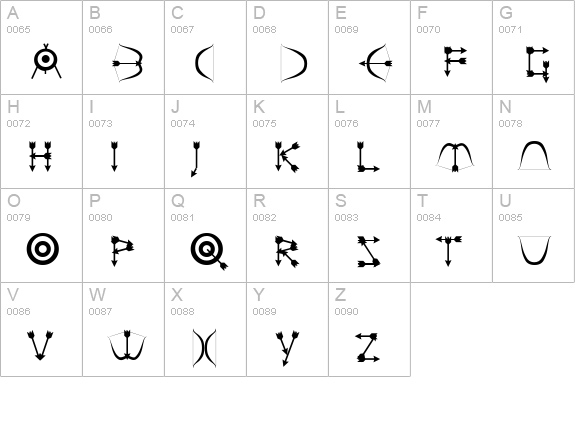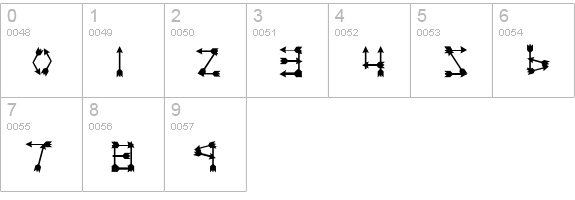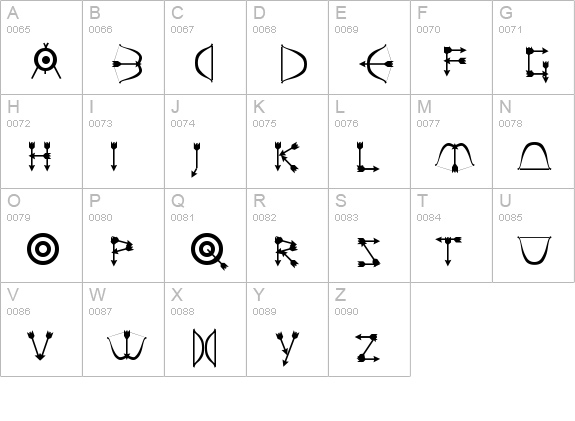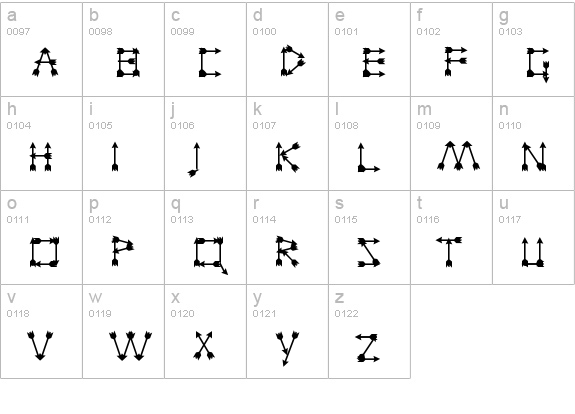
Zarrow Font Details
Zarrow font is a modern and stylish typeface that combines elegance with a touch of playfulness. The clean lines and unique letterforms make this font perfect for a wide range of design projects, from branding to packaging to social media graphics. Its versatility allows it to be used for both headings and body text, adding a touch of sophistication to any layout. What sets Zarrow font apart is not only its sleek design, but also the fact that it is available for free. That's right, you can download this stunning font at FontsMarket.com without having to spend a single dime. With its extensive character set and multiple weights, Zarrow font offers endless possibilities for creative expression. Whether you're a seasoned designer or just starting out, Zarrow font is sure to become a valuable addition to your font library.